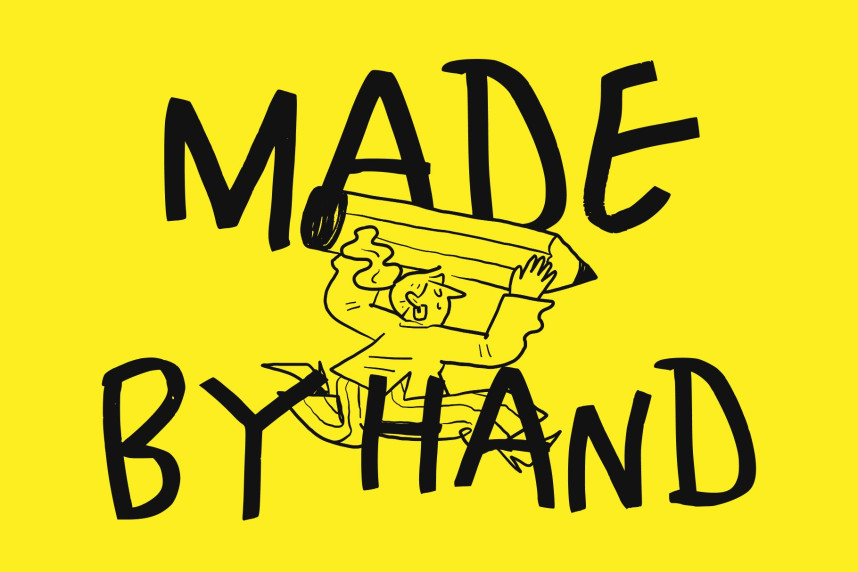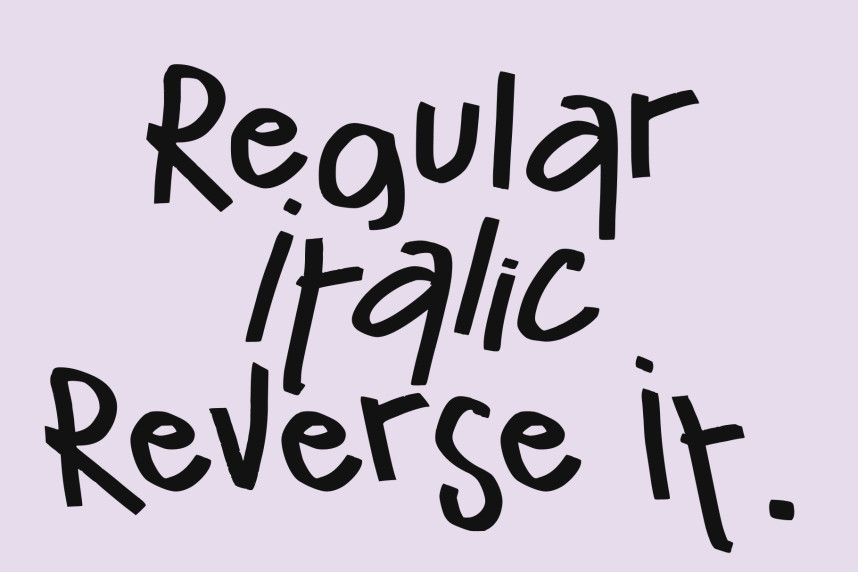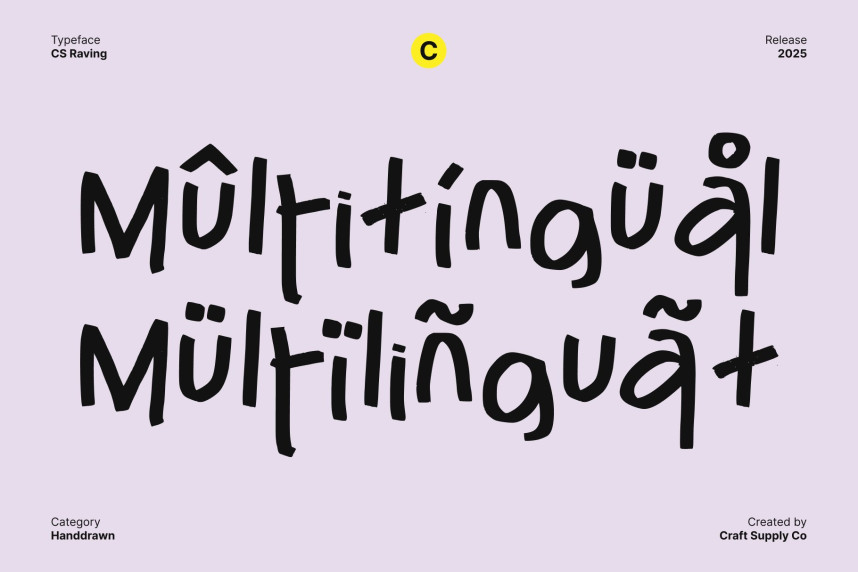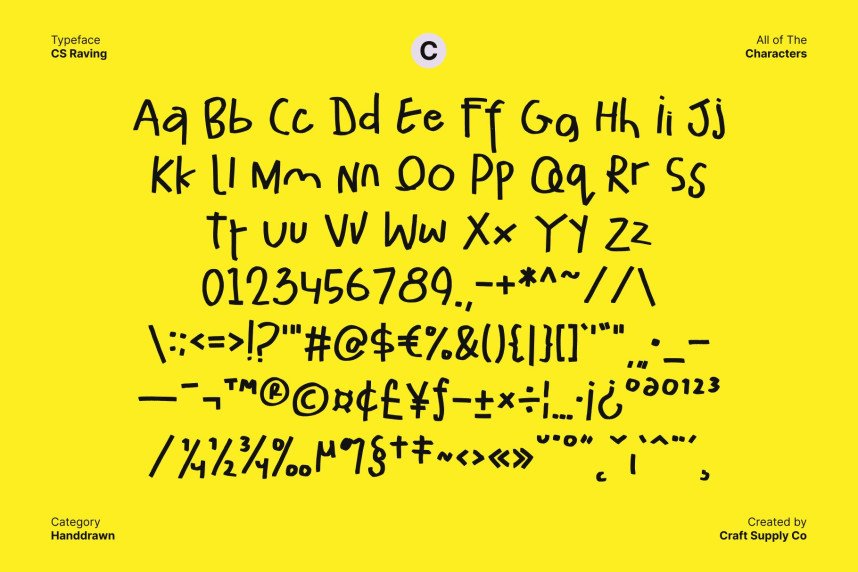
CS Raving Font
CS Raving Font – Boldly Irregular and Playful Messy Handwritten Font. This is a messy handwritten display font designed to capture the energy of irregular, freely scribbled strokes. Its gritty and stylish aesthetic gives each character a natural, hand-drawn feel, perfect for designs that want to convey authenticity and personality.